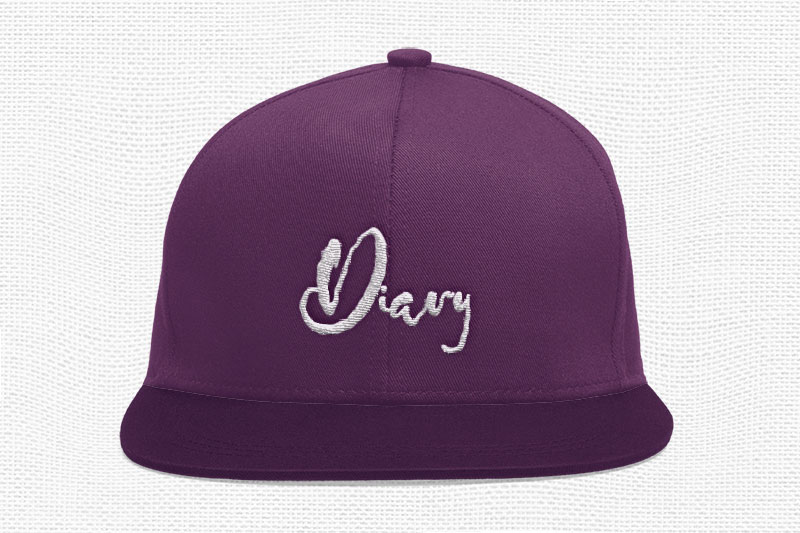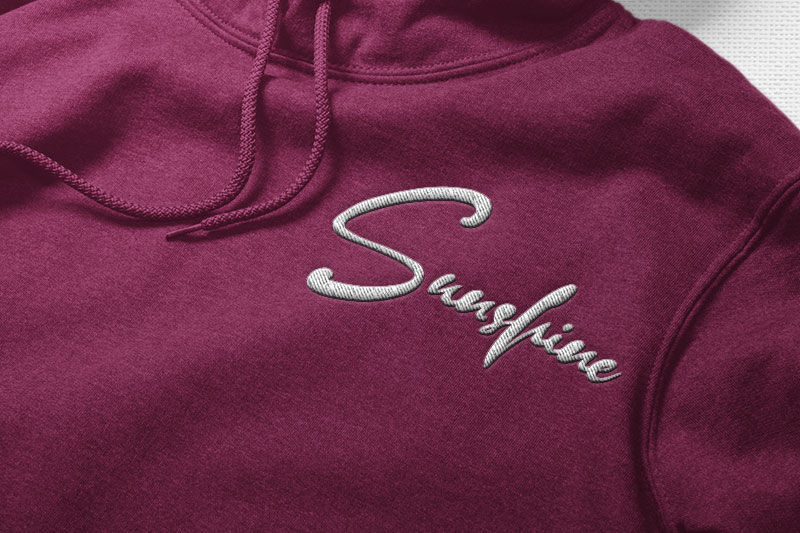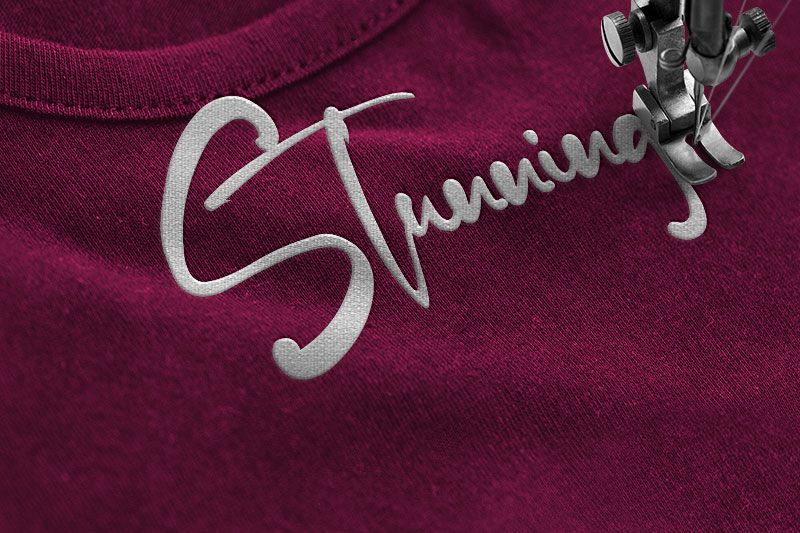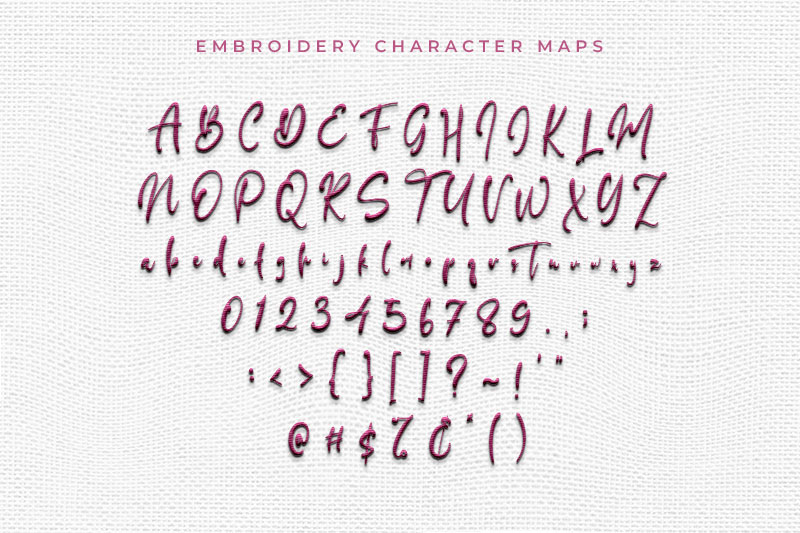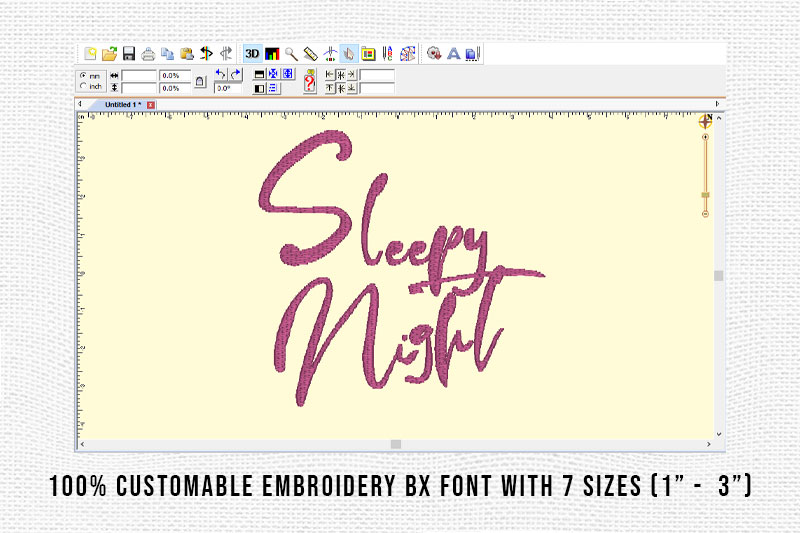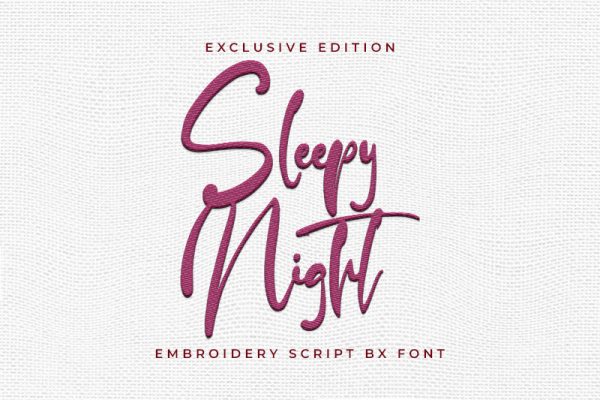
Sleepy Night Embroidery Font is a new creation that was made as attractive as possible to add a variety of handwritten Embroidery fonts. This font is here to provide another reference for those who are interested in using embroidery fonts. Sleepy Night Embroidery Font has a neat and clean characteristic with no additions throughout the letters. It has a small towering shape and a pointed shape at some ends. The appearance of this font looks very suitable when it is embroidered with thin embroidery.
Sleepy Night Embroidery Font certainly has high compatibility when used on various kinds of clothes, such as hoodies, sweaters, t-shirts, and skirts. It creates a soft and straightforward impression of its equipped product. This font can also be combined with hats and shoes. If we pay attention, today's shoes do not only use screen printing for the pattern or brand but some shoes use a type of embroidered writing. This will be one of the differences between the shoes you sell and the shoes in general.
Sleepy Night Embroidery Font can contribute as embroidery to wall hangings and souvenir bags for important events such as weddings, births, and others. This font can give the impression of elegance and luxury at the same time when combined with these objects. This font is also suitable for hand-sewn objects, such as tablecloths and home wall hangings.